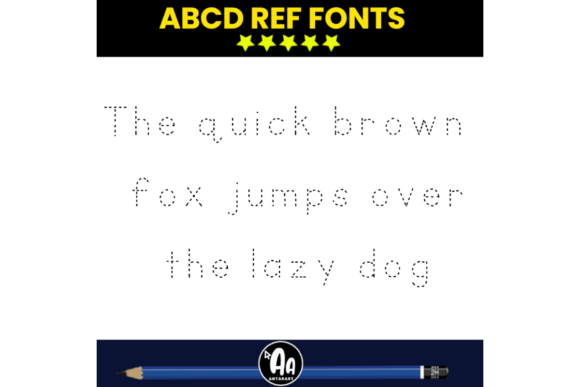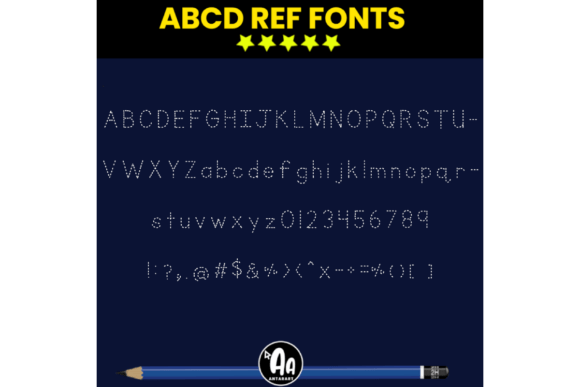
Unlocking the Power of Handwriting: Abcd Ref Dashed Dotted Tracing Font
Do you remember the joy of holding a crayon and tracing the alphabet for the first time? The sound of the crayon gliding across the paper, the feel of the smooth lines, and the pride of creating something all by yourself. For many of us, this is a cherished memory from our childhood. As educators and designers, we understand the importance of developing fine motor skills and hand-eye coordination in young children, and that’s where Abcd Ref Dashed Dotted Tracing Font comes in.
This versatile font is designed specifically for tracing practice, making it an essential tool for teachers and students alike. With its classic dot-line alphabet, clean design, and editable templates, Abcd Ref Dashed Dotted Tracing Font offers a wealth of possibilities for creating customized tracing worksheets, alphabet practice sheets, and classroom resources. Whether you’re a seasoned educator or a graphic designer looking to create engaging learning materials, this font is sure to be a valuable addition to your toolkit.
Key Features of “Abcd Ref Dashed Dotted Tracing Font”
- Unique Characteristic: The font’s distinctive dashed and dotted tracing lines make it an engaging and interactive tool for learning and creative activities.
Abcd Ref Dashed Dotted Tracing Font Review
Overall, I think Abcd Ref Dashed Dotted Tracing Font is a great addition to any designer’s toolkit, especially for creating engaging and interactive illustrations. Here are some things that I think work well:
- ✨ Unique and creative design: The font’s combination of dashes and dots creates a visually appealing and interesting look that’s perfect for adding a touch of personality to your designs.
- ✨ Versatile: The font can be used in a variety of contexts, from children’s educational materials to branding and marketing campaigns.
- ✨ Easy to use: The font is well-organized and easy to navigate, making it a breeze to use in your designs.
However, I do have a few limitations to mention:
- ⚠️ Limited character set: The font is currently only available in a limited character set, which may limit its use in certain contexts.
- ⚠️ May not be suitable for all audiences: The font’s playful and creative design may not be suitable for all audiences, such as in professional or formal contexts.
Overall, I think Abcd Ref Dashed Dotted Tracing Font is a great addition to any designer’s toolkit, but it’s not without its limitations. With a bit more development and expansion of the character set, I think this font has the potential to be truly exceptional.
The Abcd Ref Dashed Dotted Tracing Font is ideal for:
1. Educational materials, such as worksheets or flashcards.
2. Children’s books or other publications that require a playful, whimsical font.